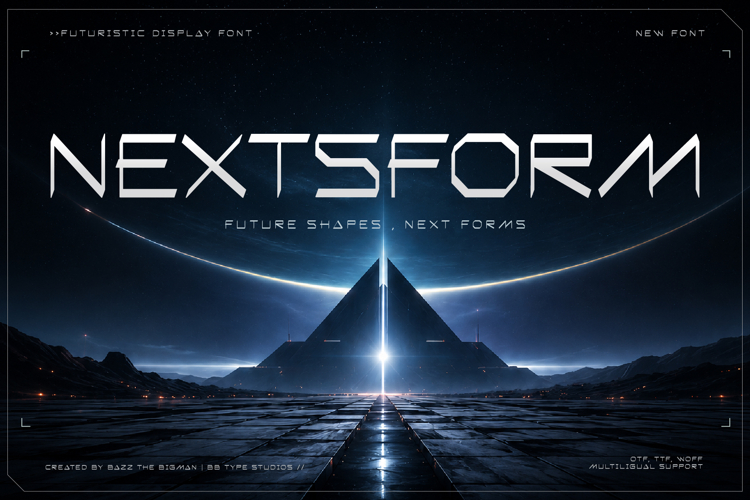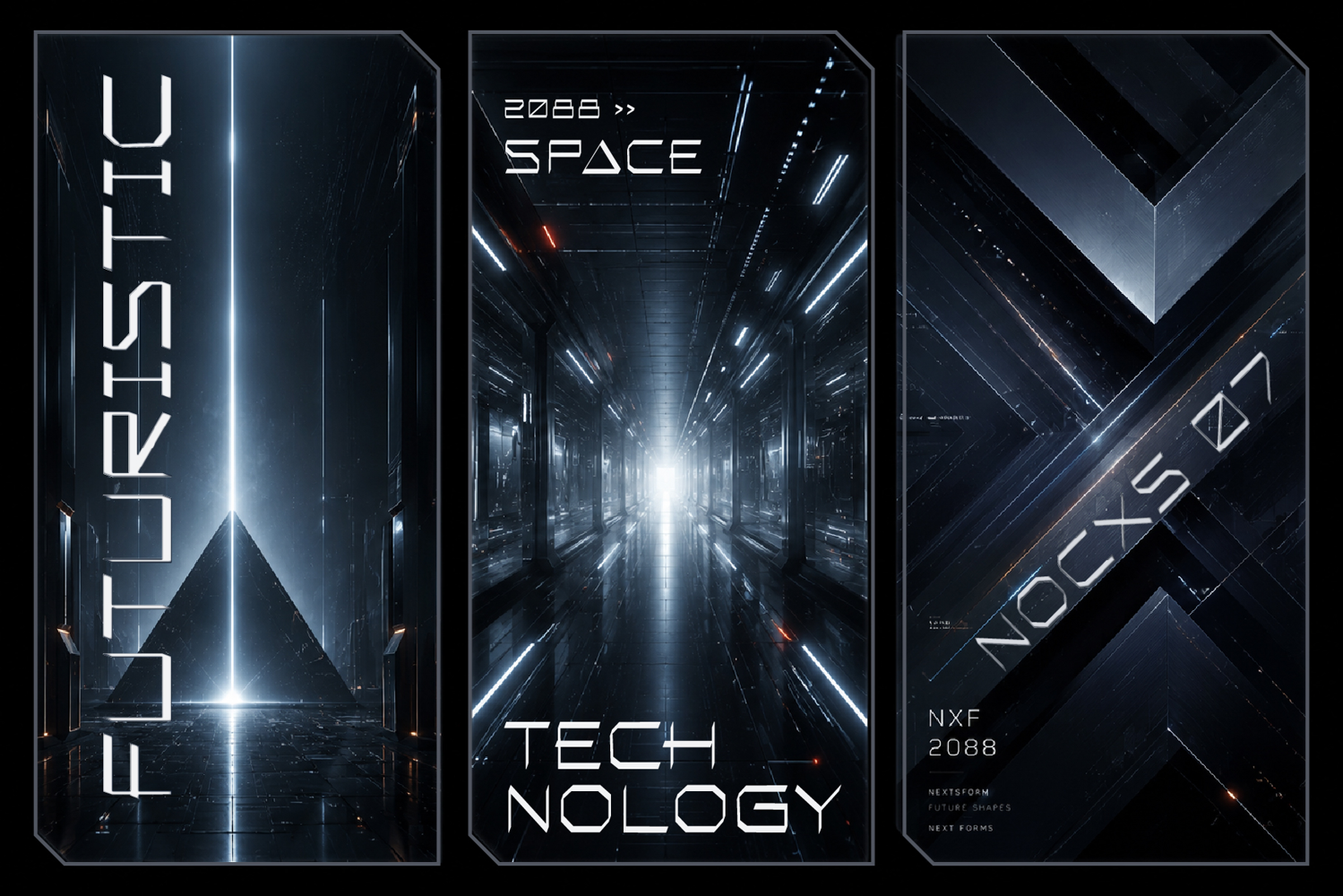
Nextsform
NEXTSFORM — Futuristic Geometric Display Typeface
NEXTSFORM is a futuristic display typeface inspired by advanced technology, digital systems, and next-generation visual forms. Designed with a geometric structure, sharp angles, and modular construction, NEXTSFORM creates a powerful sci-fi aesthetic for modern branding and creative projects. Perfect for technology brands, gaming, sci-fi posters, movie titles, futuristic logos, UI design, digital products, and innovative visual identities. Built with a unique geometric language, NEXTSFORM brings a bold futuristic atmosphere to every design — from cyber interfaces to premium tech branding.
✓ Futuristic Geometric Style
✓ Display Typeface
✓ Logo & Branding Ready
✓ Poster / Title Design
✓ Technology & Gaming Projects
Take your designs beyond the present — explore the next form.